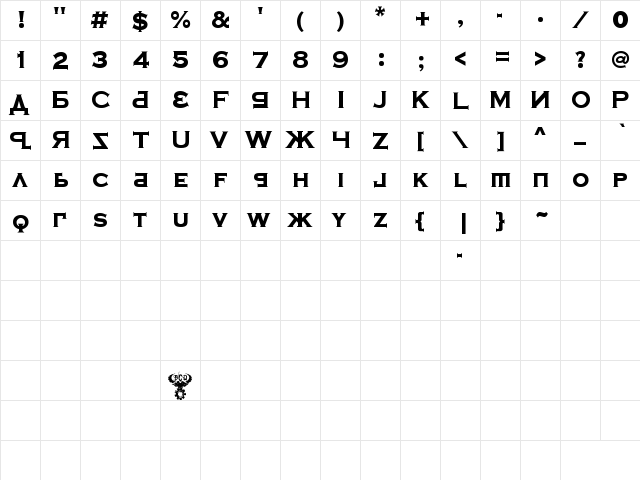
Kremlin Samovar Extra Bold Font Preview
Kremlin Samovar Extra Bold
Kremlin Samovar Extra Bold Font Details
| Style | Extra Bold |
| Designer | BoltCutterDesign |
Design Context for Kremlin Samovar Typeface
Kremlin Samovar is a composed and adaptable typeface that performs quietly and consistently across a wide range of design contexts. The heavy weight commands attention and anchors typographic hierarchies.